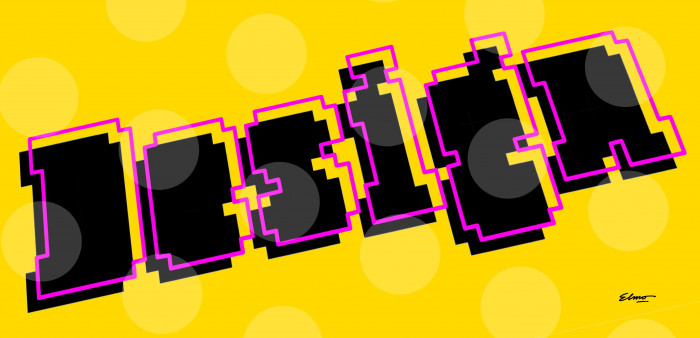
I was bored with the flu at home and then...
PS: Little improvements on A and s.
Loving this! only problem I can think of is half the time I can't actually tell what letters I'm looking at, but that might just be a me problem.
Reminds me a lot of when i was a kid playing on old word processing software on old computers and setting the font to be as bold as possible. Feel better soon amigo
A fine filled counter pixel font! Your first sample could be the beginnings of a new colour font...
@four: Thanks, compañero! Glad you like it. And the fine line is a good idea to try these days at home. (Btw, the flu is taking a while to pass, but I think it's near to finish).
@laynecom:You make me blush, master ☺️. This time I've not designed the glyphs in my notebook, as I usually do. I started and finished the font directly in FontStruct from my laptop. Since there were no bricks to nudge or modify, it was entertaining and quite easy to gradually complete letters...
That new s is much better!
Super fat slab serif in pixel style. (It's not a real pixel font, but it's close.) The strokes are so thick they completely hide the counters. Some letters are hard to recognise, but overall the text rendered with it is legible. Wonderful demo picture. I didn't know having the flu was so beneficial. 10/10
​@Dear Frodo7: Thank you very much for your always kind words about my fonts, Maestro. But if you look closely at how the glyphs are made, you will see that they were the product of a trial/error process, filling in an area of overlapping squares and eliminating some of them until finding the shape of the letter (I had first designed them with 1:1 filter, then I moved them to 2:2, etc..., I was just playing). Glad you like the sample too.